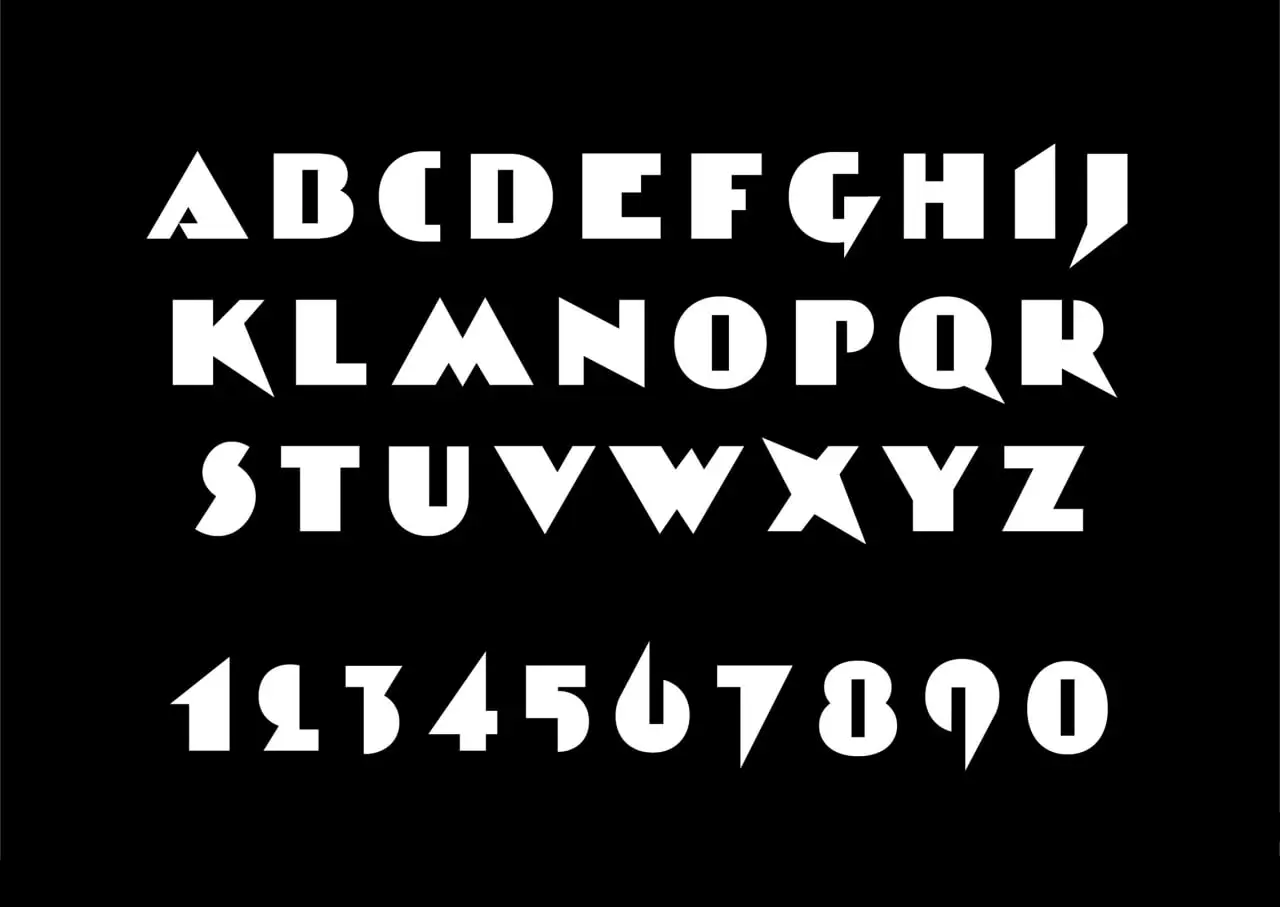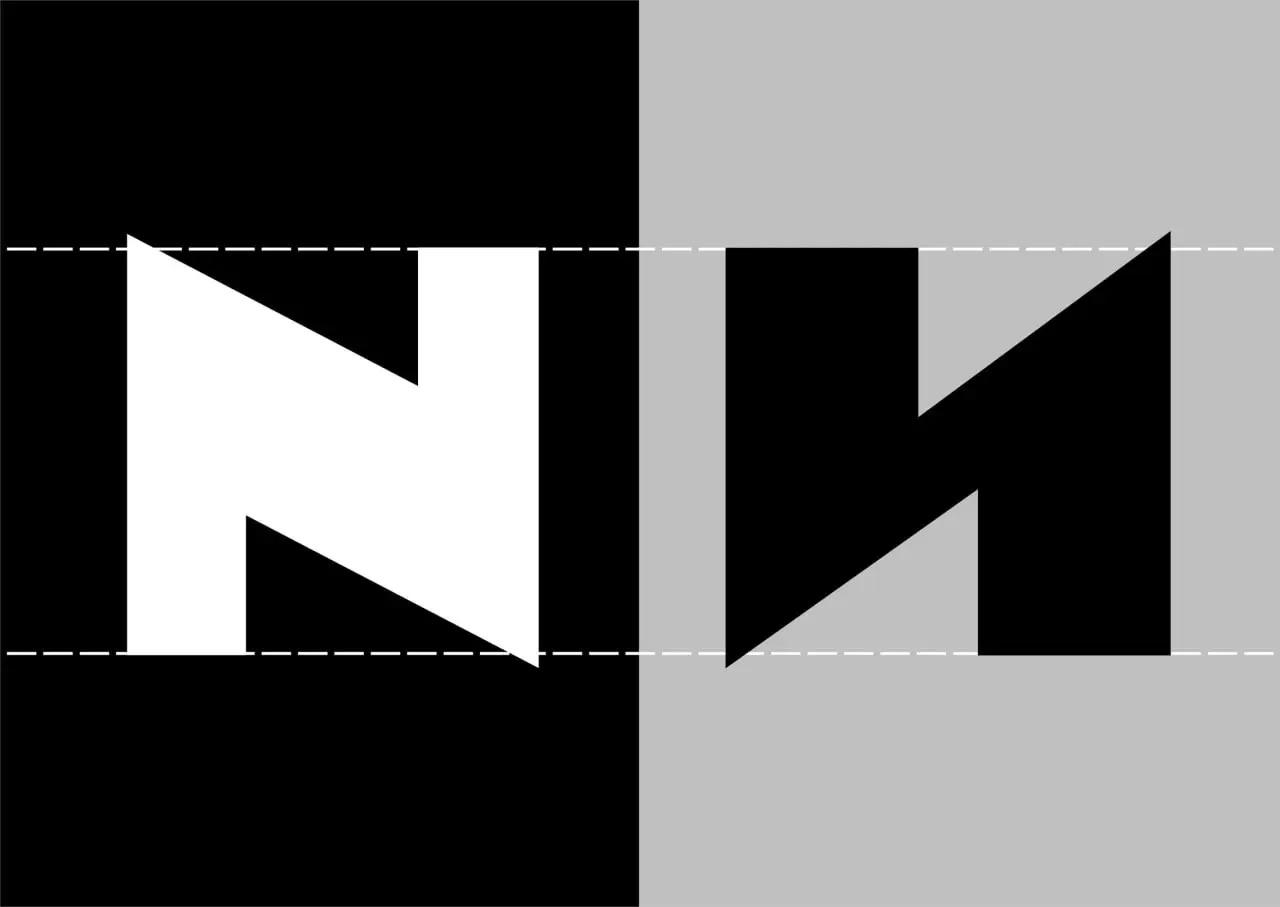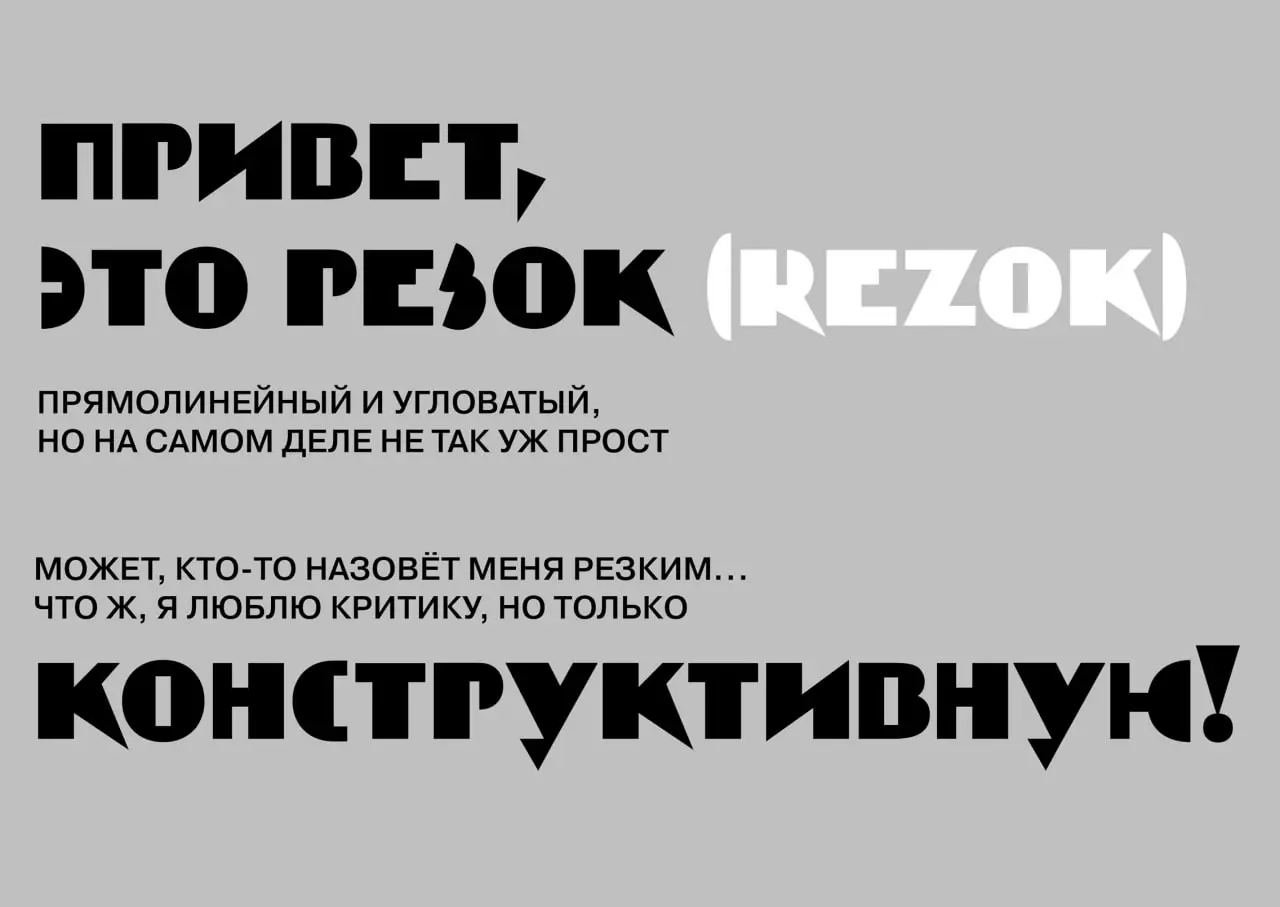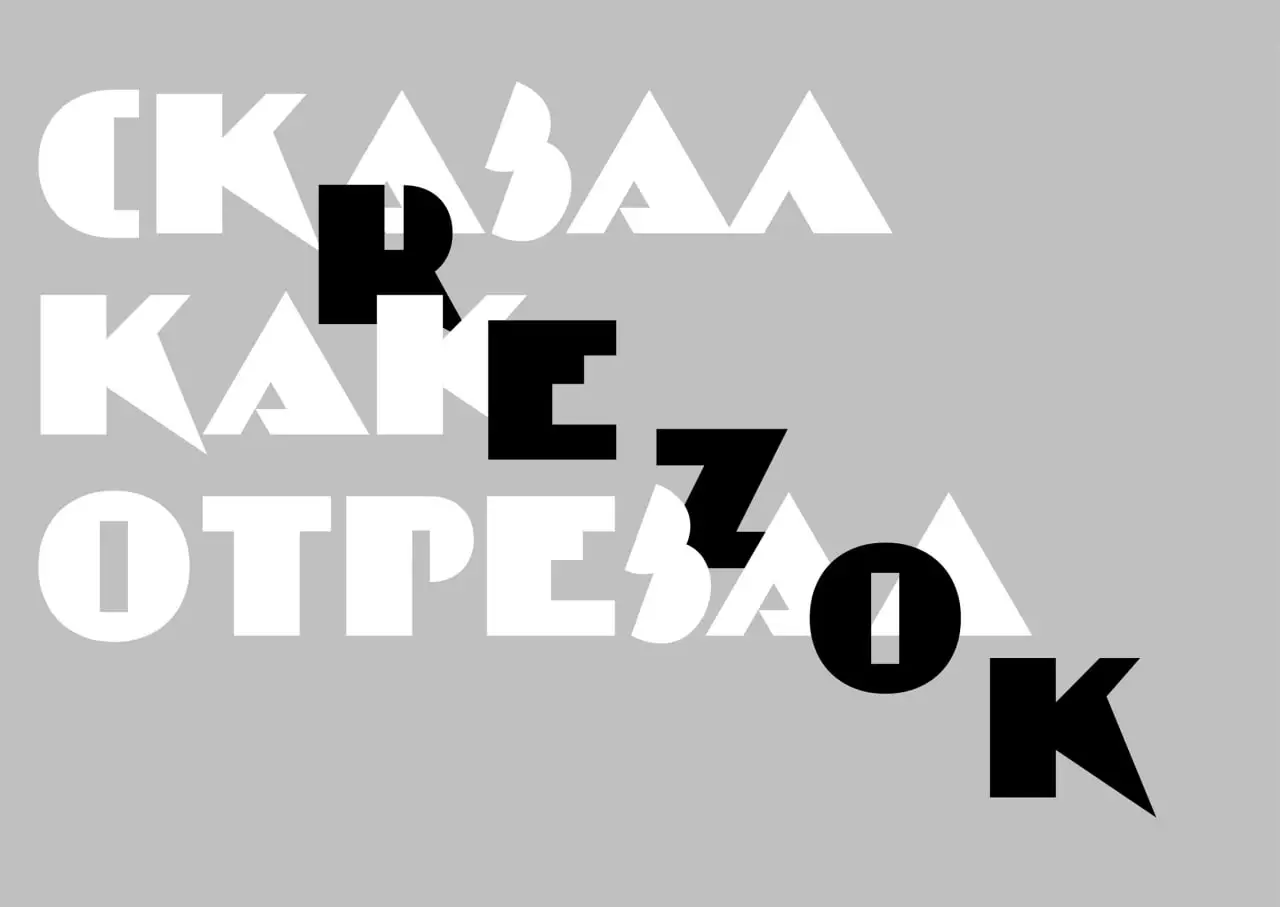
Rezok Font By Anastasiya Bogdanovskaya
Introducing the Rezok Font by Anastasiya Bogdanovskaya, a unique typeface designed to bring a modern touch to your projects. This font features a clean and contemporary style, making it suitable for a variety of applications.